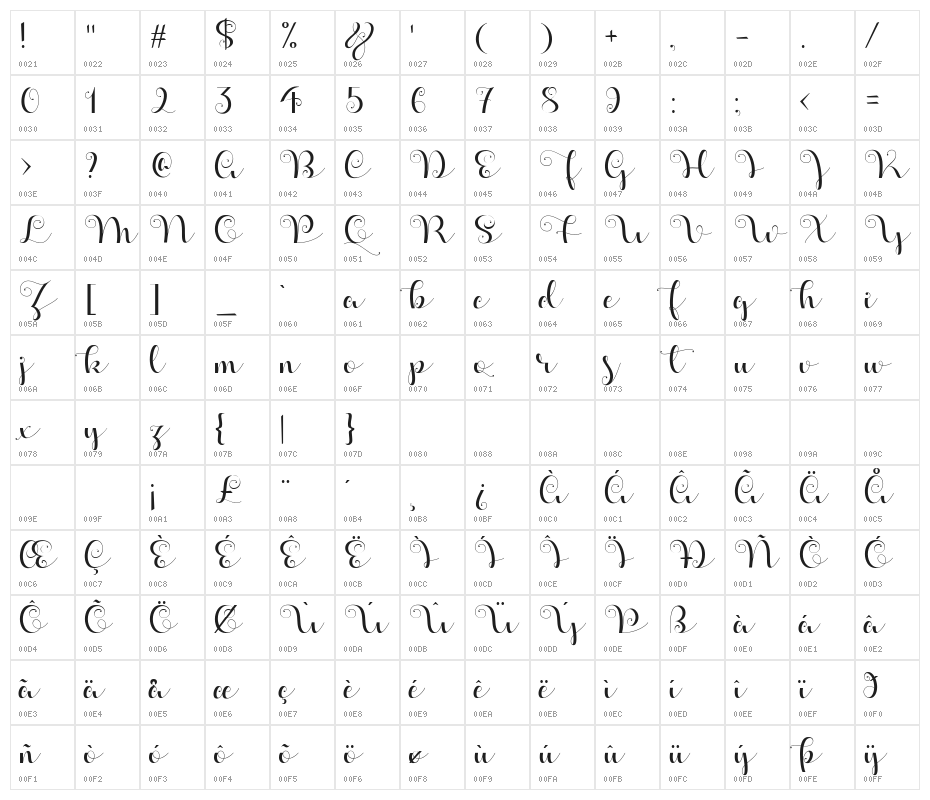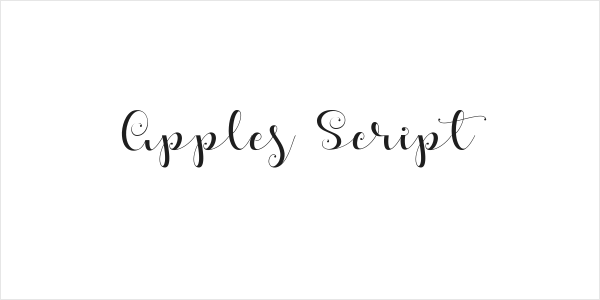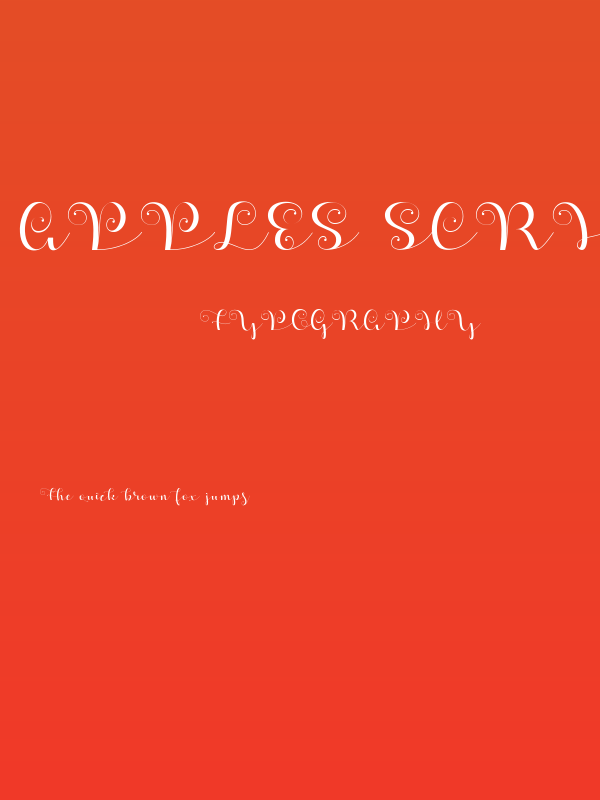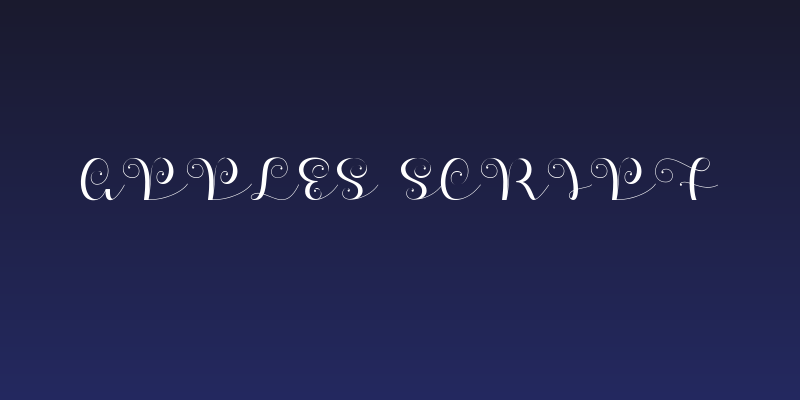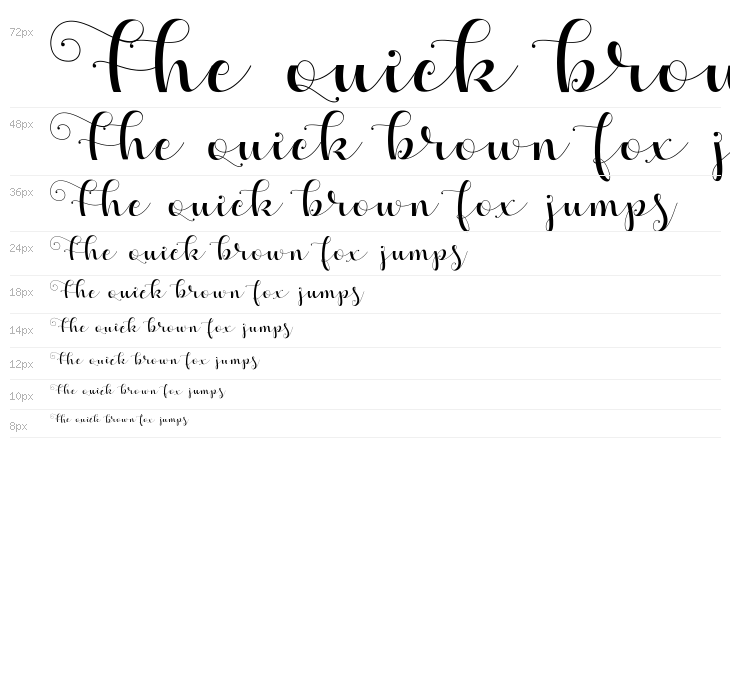
Apples Script Font
Apples Script Description
This font is a beautifully crafted script typeface that exudes elegance and sophistication. It features flowing, interconnected letters with intricate swirls and loops, giving it a highly decorative and ornate appearance. The uppercase letters are particularly elaborate, with each character adorned with unique flourishes that add a touch of whimsy and charm. The lowercase letters maintain a graceful continuity, making it ideal for creating visually appealing text. The numerals and special characters are equally stylish, ensuring consistency across all elements. This font is perfect for projects that require a touch of luxury and refinement.
| Use Case | Logos, Invitations, Decorative text |
| Proposed Projects | Ideal for wedding invitations, luxury branding, greeting cards, and elegant packaging designs. |